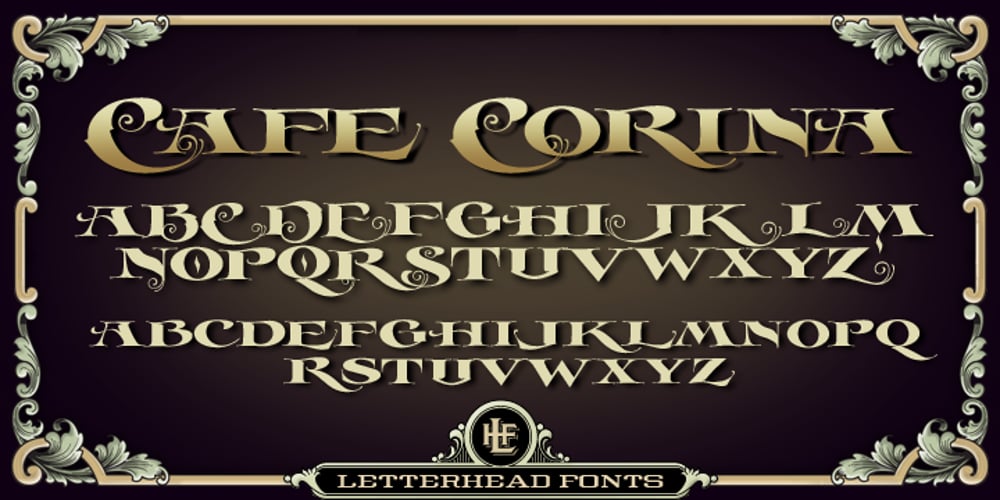
LHF Cafe Corina
LHF Cafe Corina font
LHF Cafe Corina Font Family was designed by Chuck Davis and published by Letterhead Fonts. LHF Cafe Corina contains 1 styles and family package options. Enjoy this one-of-a-kind custom creation from Chuck Davis. Beautiful curves make it a must have.